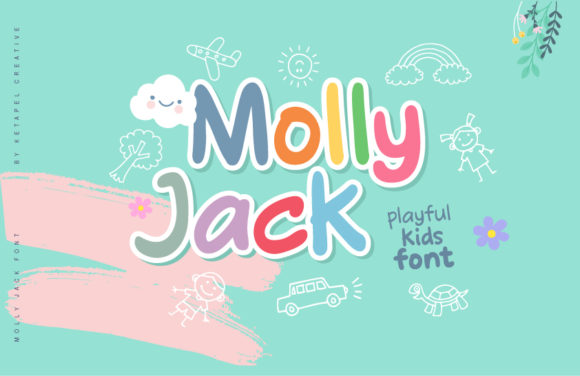
In a world where words dance off the page, meet Molly Jack – the font that ignites your imagination and transports you to a realm of limitless creativity. Crafted with the essence of playfulness and uniqueness, this font is an artist's dream, effortlessly capturing the vibrancy of comic book storytelling.
Immerse yourself in the whimsical world of Molly Jack, where letters transform into lively characters, each stroke bursting with personality. The font's playful nature dances across your screen, inviting you to craft tales that are as captivating as they are unforgettable.
With Molly Jack, you hold the key to unlocking a treasure chest of emotions. Its enchanting curves and energetic lines infuse your words with an irresistible charm, leaving readers spellbound. Whether you're a seasoned storyteller or a budding artist, Molly Jack is your muse, inspiring you to weave narratives that resonate with your audience.
Beyond its captivating aesthetics, Molly Jack is a font of versatility, effortlessly adapting to a myriad of design styles. Whether you're crafting eye-catching posters, designing dynamic logos, or creating social media posts that pop, Molly Jack seamlessly elevates your creations. Its playful spirit lends itself to a range of projects, from whimsical illustrations to dynamic branding, ensuring your message never goes unnoticed.
As you embark on your creative journey with Molly Jack, you'll discover a font that not only enhances your designs but also ignites your passion. So, let your imagination soar, embrace the magic of Molly Jack, and watch as your words take on a life of their own.